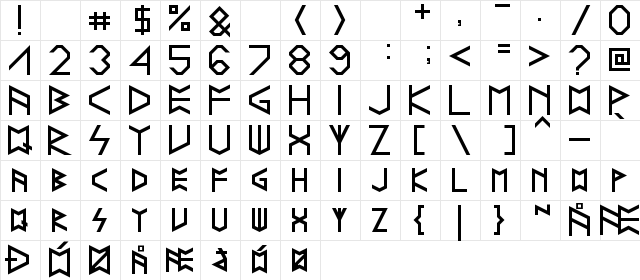
Runelike Regular
| Designer | Kiedra |
Design Context for Runelike Typeface
Runelike is a composed and adaptable typeface that performs quietly and consistently across a wide range of design contexts.